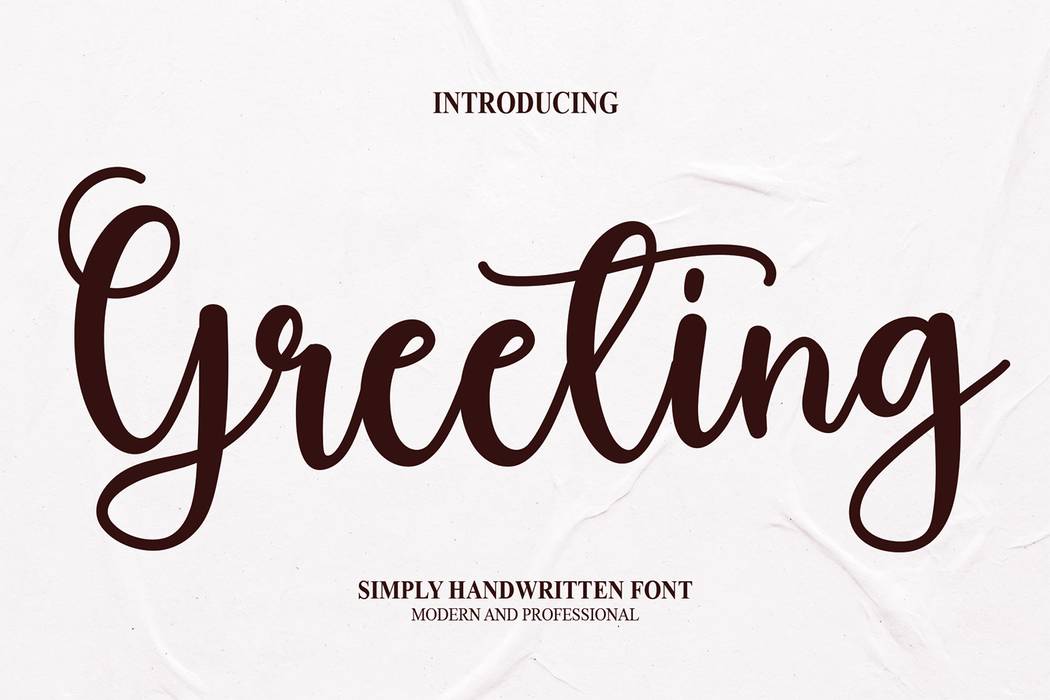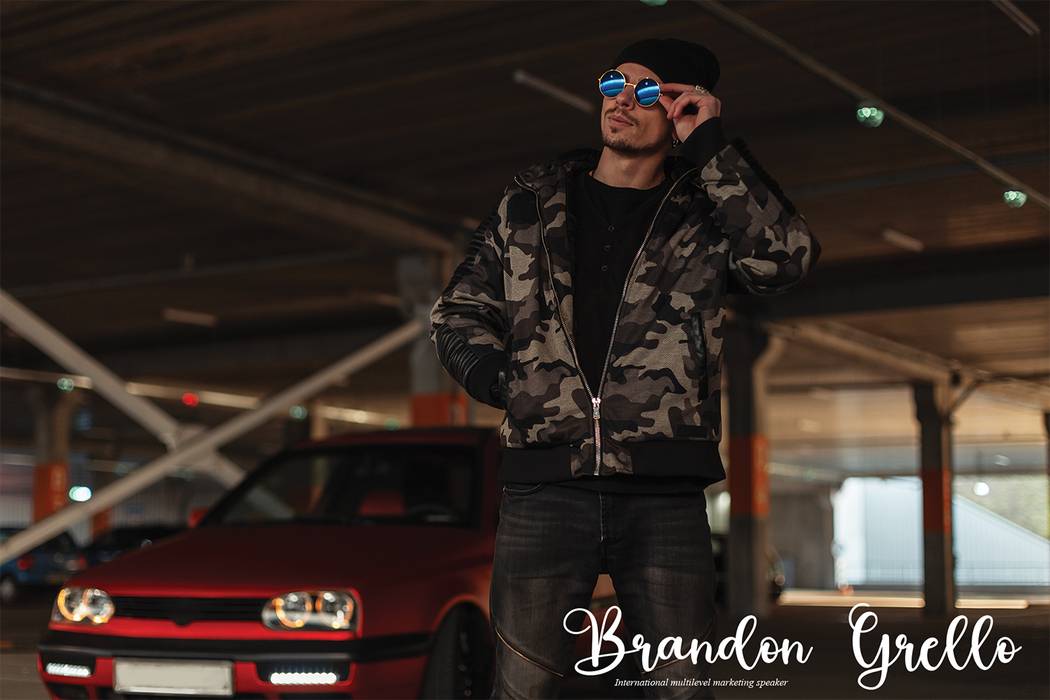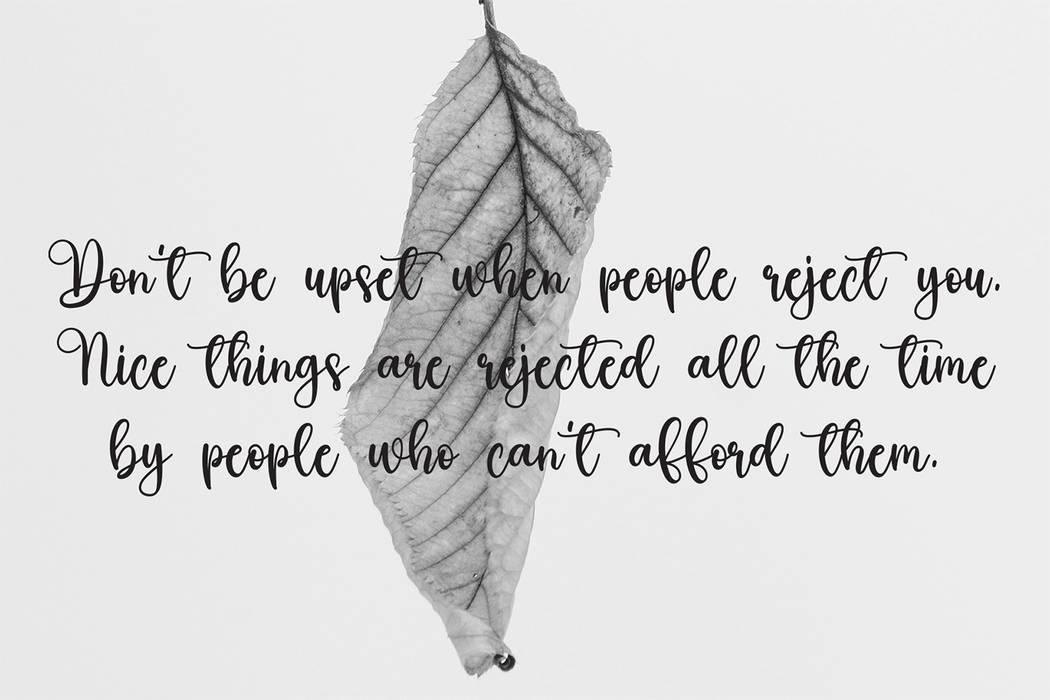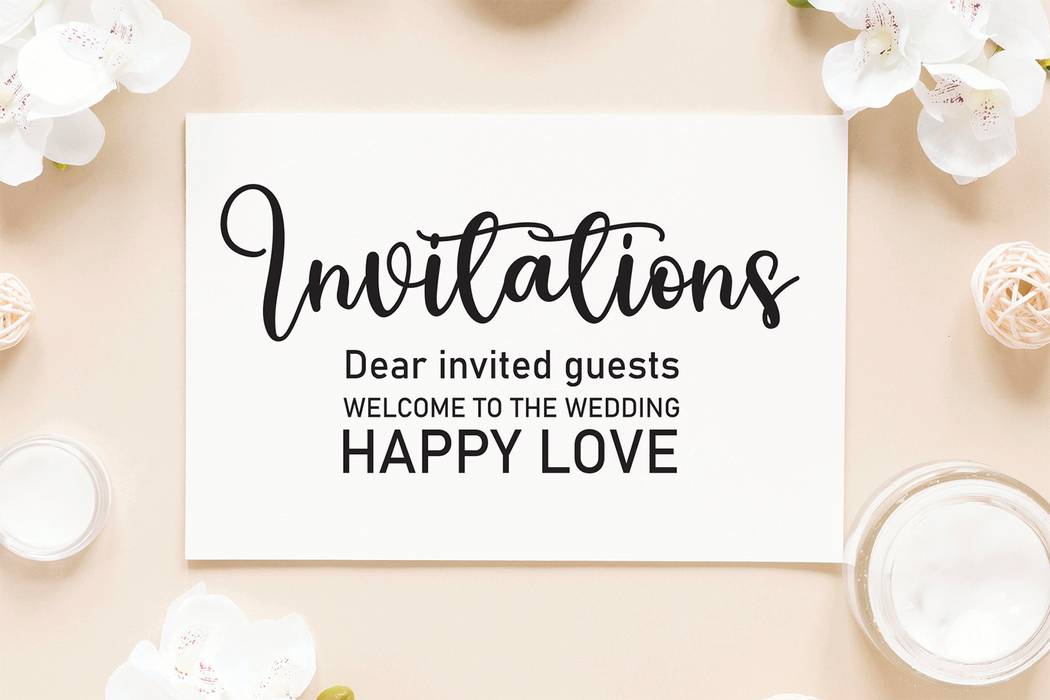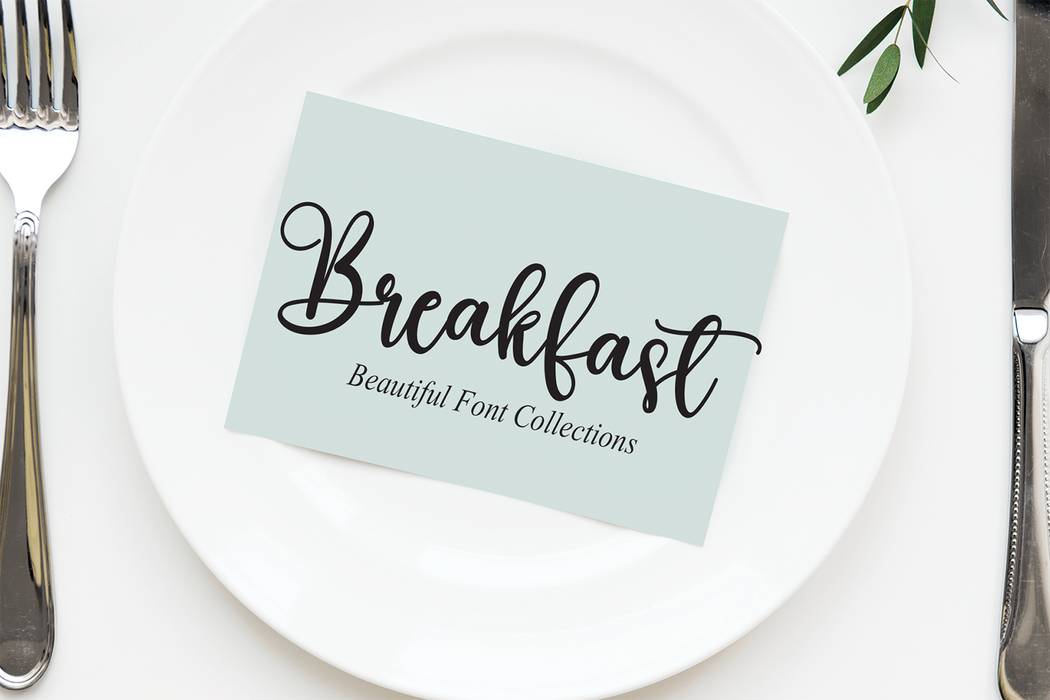
Greeting Font is an elegant script typeface featuring fluid, hand-drawn letterforms with decorative swashes and a lively, playful character. Its balanced weight and moderate contrast make it ideal for invitations, greeting cards, and branding that seeks a personal, charming touch. This font works beautifully in headlines and logos where a warm, friendly, and stylish impression is desired.
Greeting Font